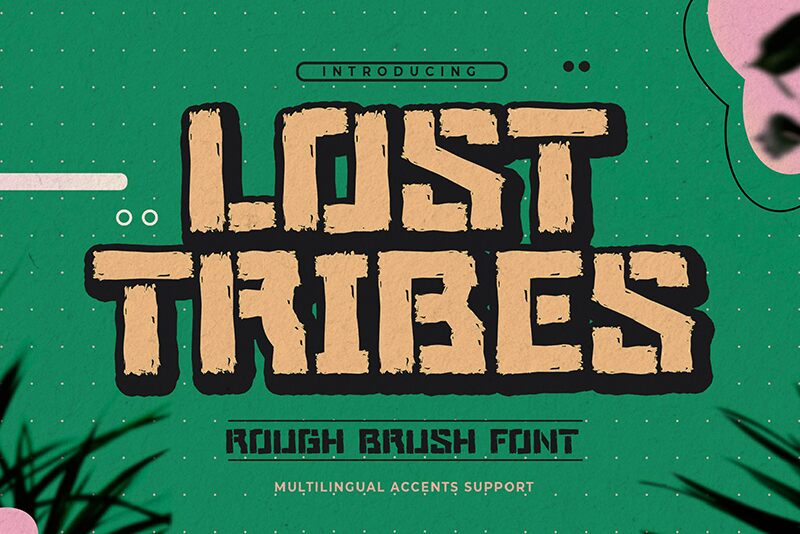
Lost Tribes font, designed by Gassstype, commands attention with its bold and striking military style. The expanded letterforms convey a sense of strength and presence, while the rugged edges add an element of raw authenticity. This display typeface evokes a battle-hardened spirit, perfect for projects that call for an impactful visual statement.
Its unique characteristics make it ideal for various design contexts, from adventurous branding and promotional materials to edgy posters and video game graphics. Whether you're aiming to capture the essence of survival or create a daring aesthetic, Lost Tribes stands out as a powerful choice that resonates with themes of resilience and unity among diverse cultures.